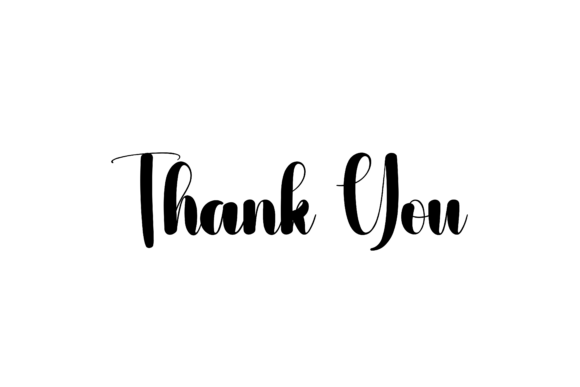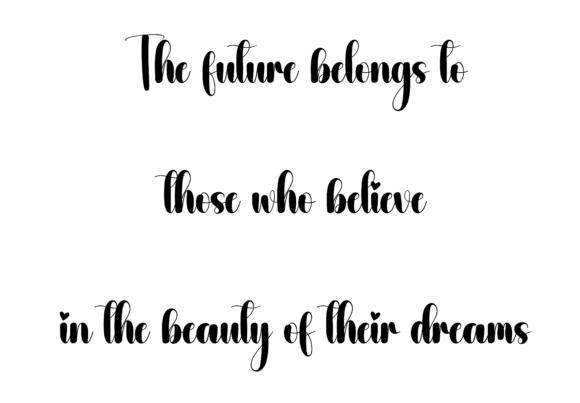
Step into the Enchanting Universe of the Disney Font
As a designer, I’ve had my fair share of moments where finding the perfect font seemed like an impossible task. I recall working on a wedding announcement project, determined to create something that would make the couple’s special day even more unforgettable. After hours of scouring through font libraries, I stumbled upon the stunningly refined script style of the Disney font. It was love at first sight! ✨ The exquisite sophistication of Disney is perfect for turning your designs into timeless treasures, and I’m excited to share its exceptional versatility with you.
A Personal Review: What I Love and What to Consider
- ✨ Exquisite sophistication: Disney font adds a touch of elegance to any design project.
- ✅ Versatility: Suitable for wedding announcements, papercrafts, digital content, and more.
- 💫 Charismatic sheen: Disney font brings a unique character that enhances your designs.
- 🤔 Limited use in body text: Disney font is best used for headings or titles due to its script nature.
- ⚠️ Glyph limitations: Some characters may not be available in all platforms or software.
The Designer Inspiration Behind Disney Font
Although the origins of Disney font might be unclear, it’s easy to imagine a designer inspired by classic Disney movies and fairytales. Perhaps the designer aimed to capture the magic and whimsy of these beloved stories in a typographic form. The result is a font that feels both nostalgic and timeless.
| Font Name | Disney Font |
| Author | Infontree |
| What makes Disney font so special? | The Disney font’s unique blend of sophistication and whimsy makes it perfect for a variety of design projects, from wedding announcements to digital content. |
| What are some common uses for Disney font? | Disney font is great for titles, headings, wedding announcements, papercrafts, and digital content where a touch of elegance is desired. |